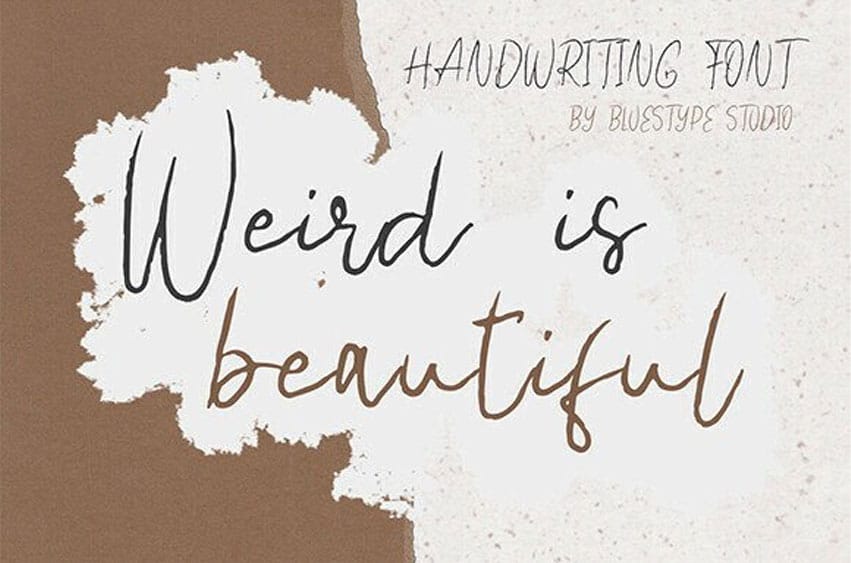
Weird is Beautiful Font is a handwritten font that combines uniqueness and natural beauty, created with beautiful pencil strokes and is suitable for those of you who want a unique design.